High-end brands require typography that expresses sophistication, heritage, and trust. While minimalist trends come and go, classical serif letterforms remain timeless. Therefore, choosing luxury serif fonts is essential if you want your products to feel premium, exclusive, and high quality.
Whether you are launching a skincare line, a boutique jewelry shop, or an editorial magazine, here is how to use serif fonts for high-end branding.
1. Look for High Contrast and Softened Curves
Elegant serif typography relies on delicate balance. High-contrast fonts feature thin hairline stems combined with rich, thick strokes. For example, typefaces with softened round serifs offer a welcoming yet deeply sophisticated aesthetic. Consequently, your brand logo feels luxurious without appearing cold or unwelcoming.
2. Give Your Luxury Typography Plenty of White Space
Crowding high-end fonts will instantly ruin their delicate aesthetic. Always surround your text with generous empty space on web banners, packaging boxes, and business cards. As a result, the intricate curves and proportions of your luxury serif fonts can stand out clearly.
3. Perfect for Product Packaging and Editorial Layouts
Luxury typography performs exceptionally well across physical materials:
- Skincare & Cosmetics: Creates clean, trustworthy label designs for serum bottles and cream jars.
- Jewelry & Fashion: Delivers a high-fashion look for shopping bags, garment tags, and boxes.
- Editorial Publishing: Adds timeless class to magazine article headers and pull quotes.
Recommended Fonts from Artisan Font
- Laghino: A classic round serif font with softened edges, crafted specifically for luxury visual identities.
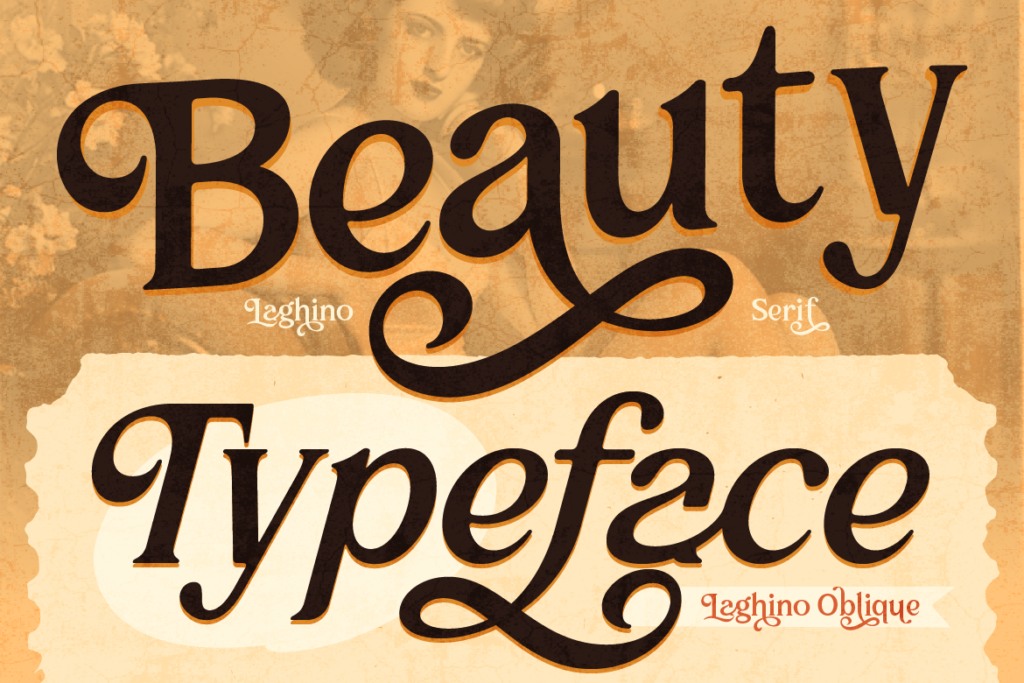
- Foramte: A unique, elegant serif typeface designed to make boutique logos look exclusive.